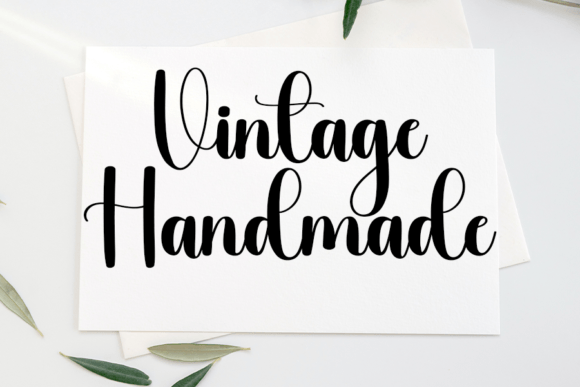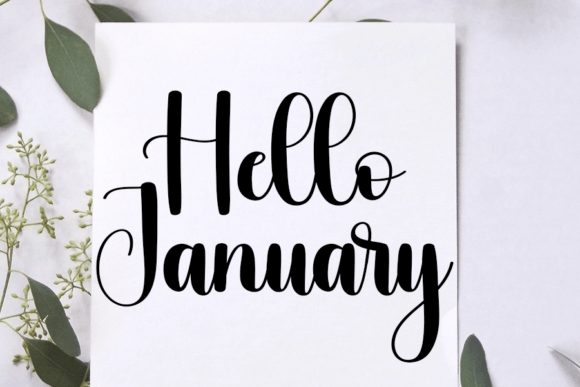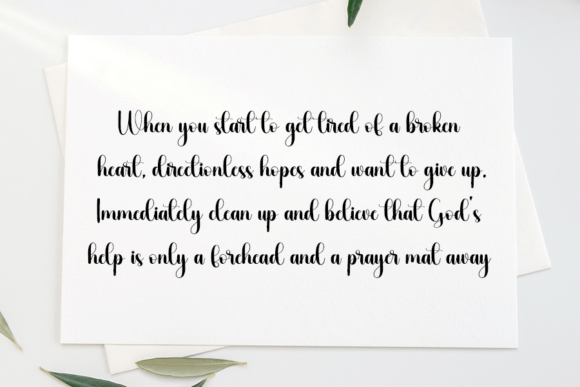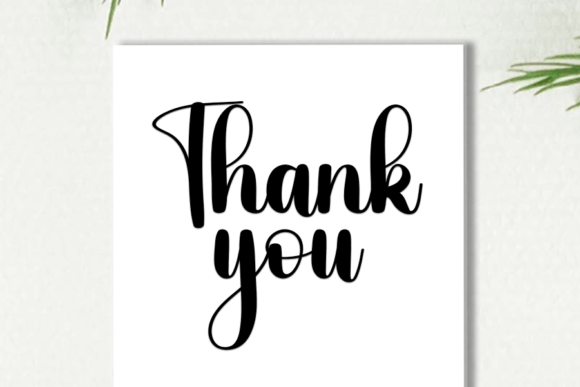
Bakery Font: The Sweetest Addition to Your Design Collection
Are you a designer, crafter, or DIY enthusiast looking for a unique and eye-catching font to elevate your creative projects? Look no further than Bakery Font, a delicate handwritten font that’s sure to add a touch of warmth and personality to your designs. In this article, we’ll dive into the world of Bakery Font, exploring its features, uses, and benefits, as well as provide tips and inspiration for incorporating it into your work.
What is Bakery Font?
Bakery Font is a carefully crafted handwritten font designed to bring a cool and unique touch to your designs. With its elegant, cursive script and subtle imperfections, this font is perfect for creating a wide range of projects, from letters and invitations to food product labels, titles, and more. Whether you’re a professional designer or a crafty DIY enthusiast, Bakery Font is sure to become a favorite in your collection.
Features of Bakery Font
So, what makes Bakery Font so special? Here are just a few of its standout features:
- Handwritten charm: Bakery Font boasts a beautiful, handwritten aesthetic that’s perfect for adding a personal touch to your designs.
- Elegant script: With its flowing cursive script, Bakery Font is ideal for creating sophisticated, eye-catching designs.
- Unique character: This font’s subtle imperfections and quirks give it a one-of-a-kind personality that’s sure to set your designs apart.
- Versatile: From letters and invitations to food product labels and titles, Bakery Font can be used for a wide range of projects.
Uses for Bakery Font
So, what can you use Bakery Font for? The possibilities are endless! Here are a few ideas to get you started:
- Invitations and stationery: Use Bakery Font to create beautiful, one-of-a-kind invitations, greeting cards, and stationery sets.
- Food packaging: Add a touch of personality to your food product labels, packaging, and branding with Bakery Font.
- Titles and headings: Use Bakery Font to create eye-catching titles, headings, and subheadings for your blog posts, articles, and other written content.
- DIY crafts: Bakery Font is perfect for crafty DIY projects, such as handmade cards, gift tags, and other paper crafts.
Tips for Using Bakery Font
Here are a few tips for getting the most out of Bakery Font:
- Pair it with contrasting fonts: Combine Bakery Font with bold, sans-serif fonts for a striking contrast.
- Experiment with colors: Try pairing Bakery Font with bright, bold colors or soft pastels to add visual interest to your designs.
- Use it sparingly: Don’t be afraid to use Bakery Font sparingly to add a touch of elegance and sophistication to your designs.